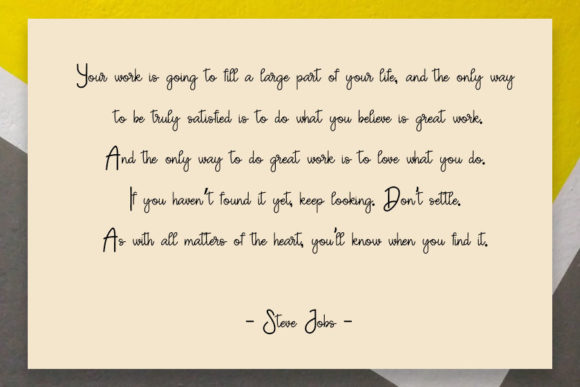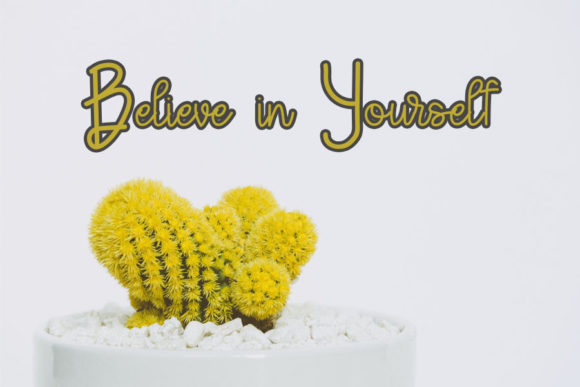
Paper Flowers Font
db-ku.com - Script & Handwritten -- Paper Flowers is a thin and beautiful handwritten font. Its distinct and well rounded letters make this font a masterpiece. Fall in love with its incredibly versatile style and use it to create spectacular designs!